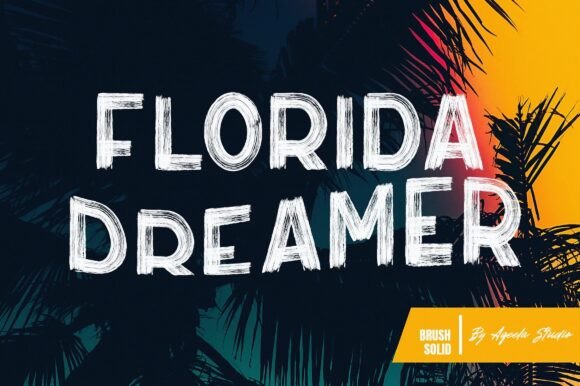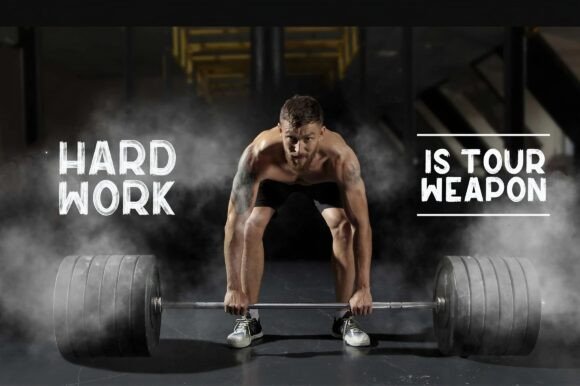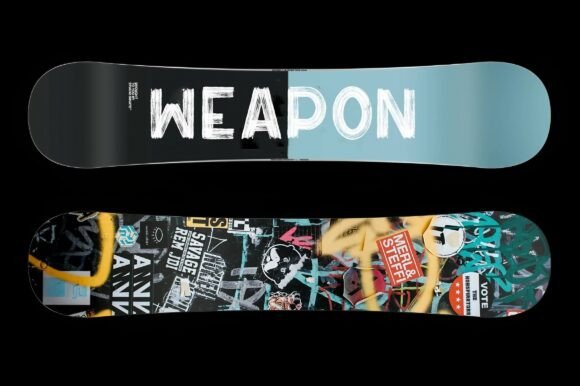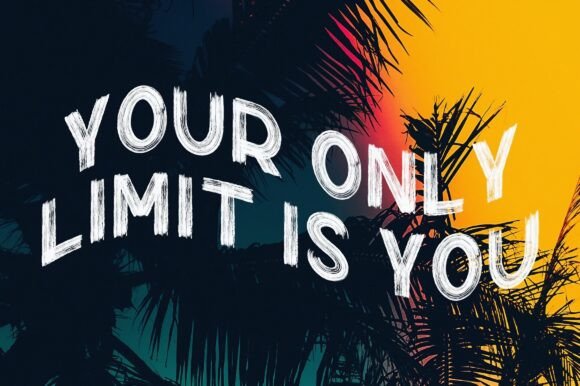
Florida Dreamer Font
About the Florida Dreamer Font
Get ready to be inspired by Florida Dreamer Font, a fresh and dynamic typeface for modern creators. The Florida Dreamer Brush Font captures the essence of coastal vibes and creative energy. Its fluid, hand-drawn strokes mimic the carefree brush of waves on golden shores, exuding a sense of warmth and wanderlust. Perfect for designs that aim to evoke adventure, relaxation, or artistic flair, this font effortlessly blends boldness with a breezy charm. Whether you’re crafting tropical-inspired branding, lively invitations, or eye-catching posters, Florida Dreamer sets the tone for free-spirited elegance.
Florida Dreamer Font Usage Examples
Florida Dreamer Font Example